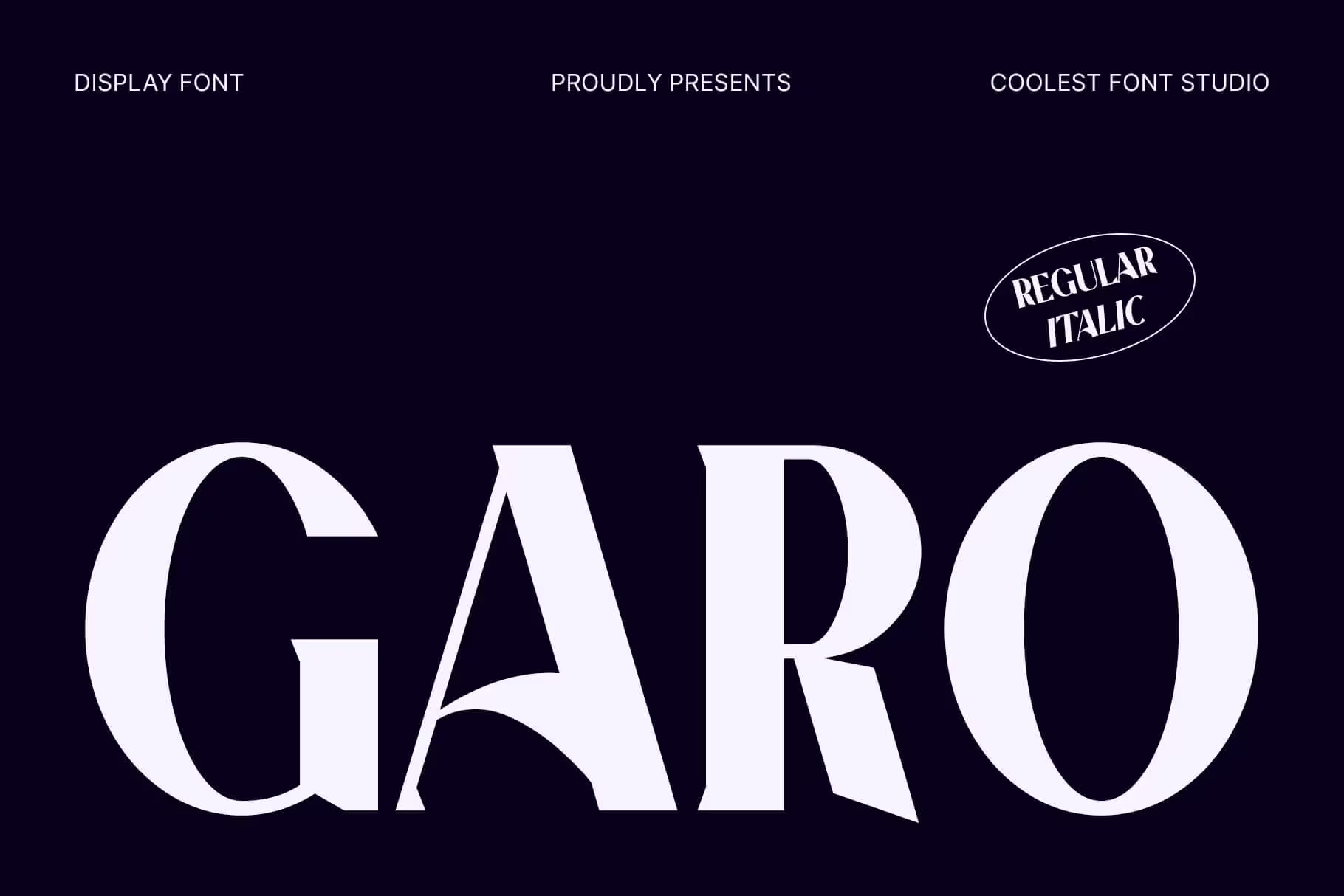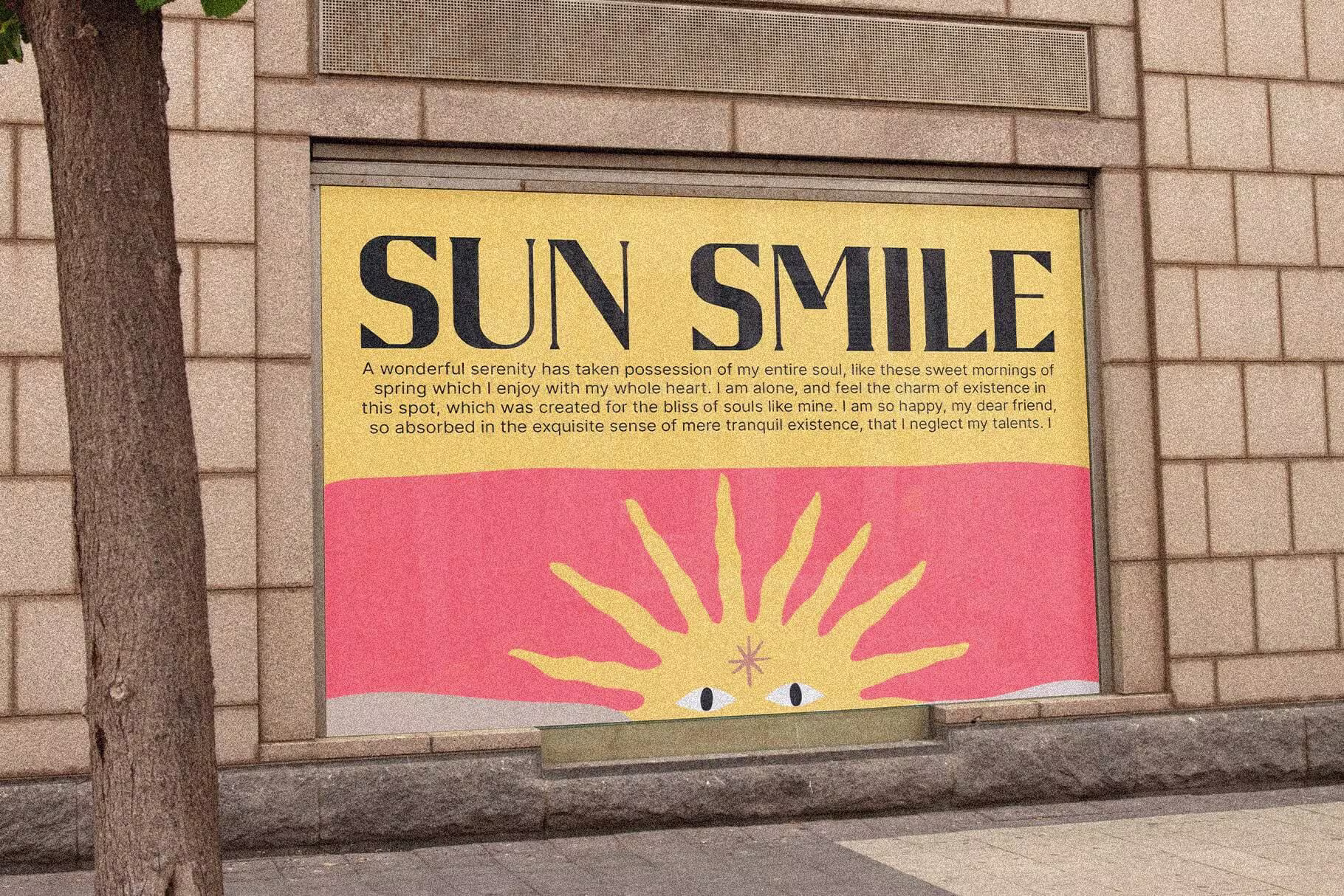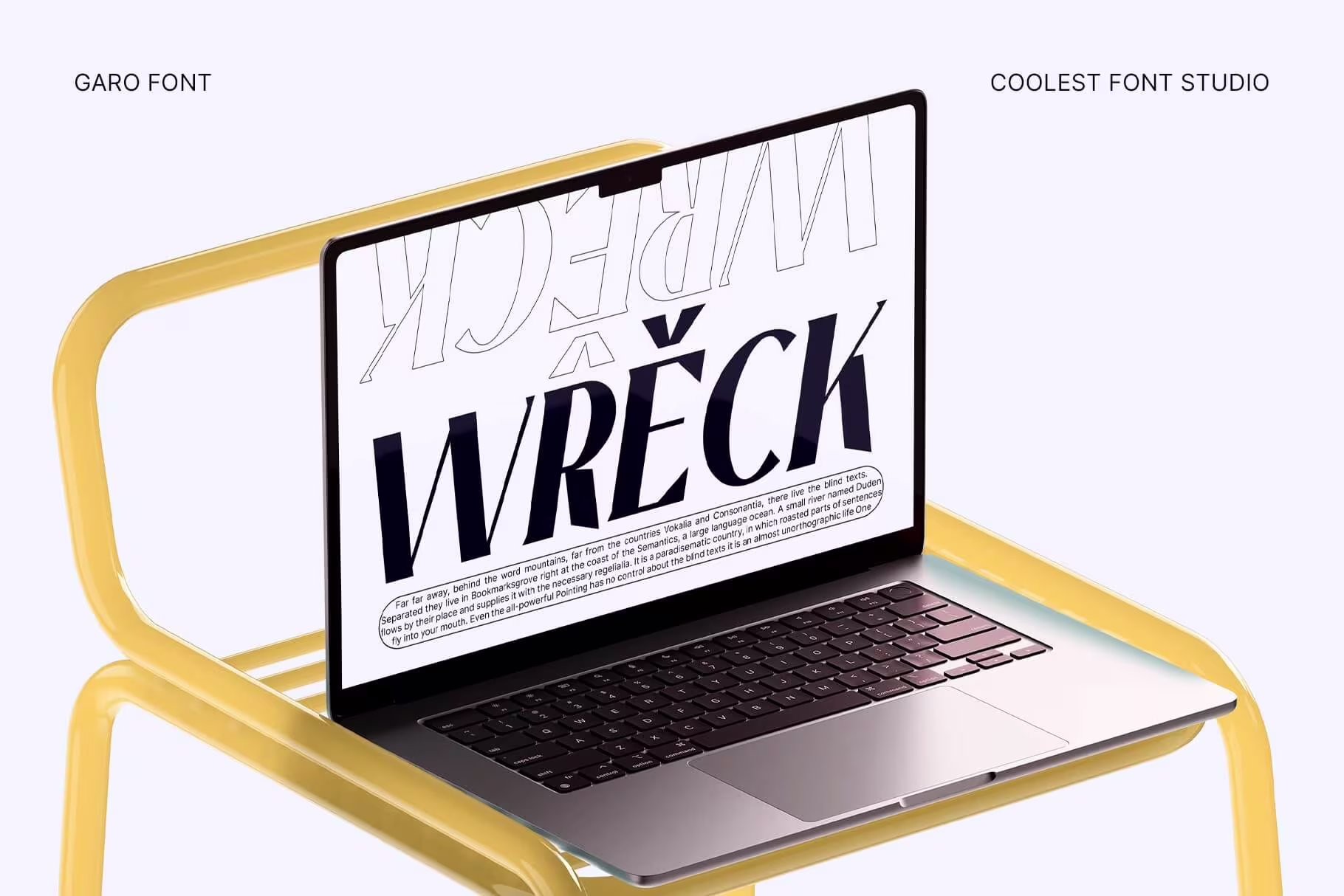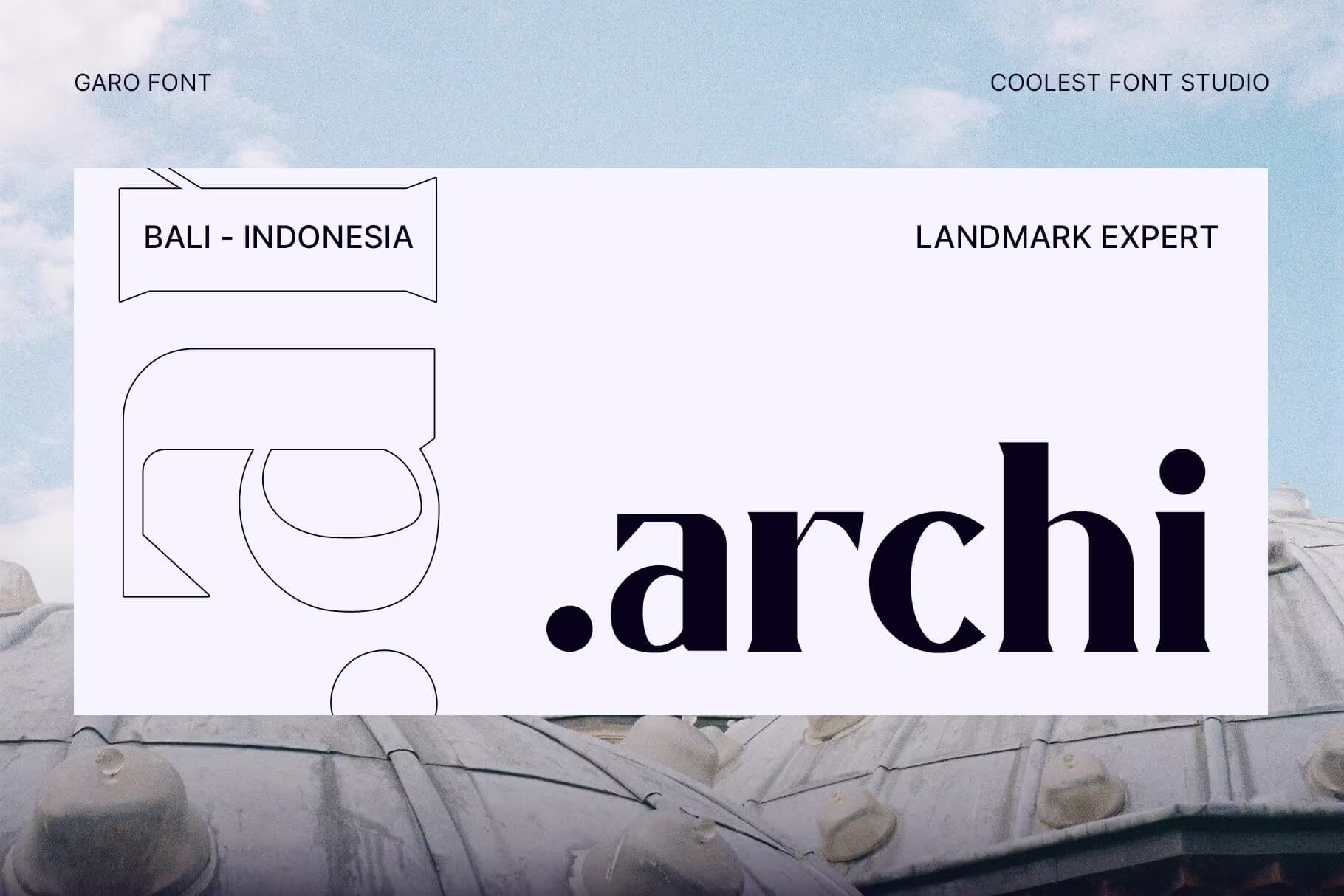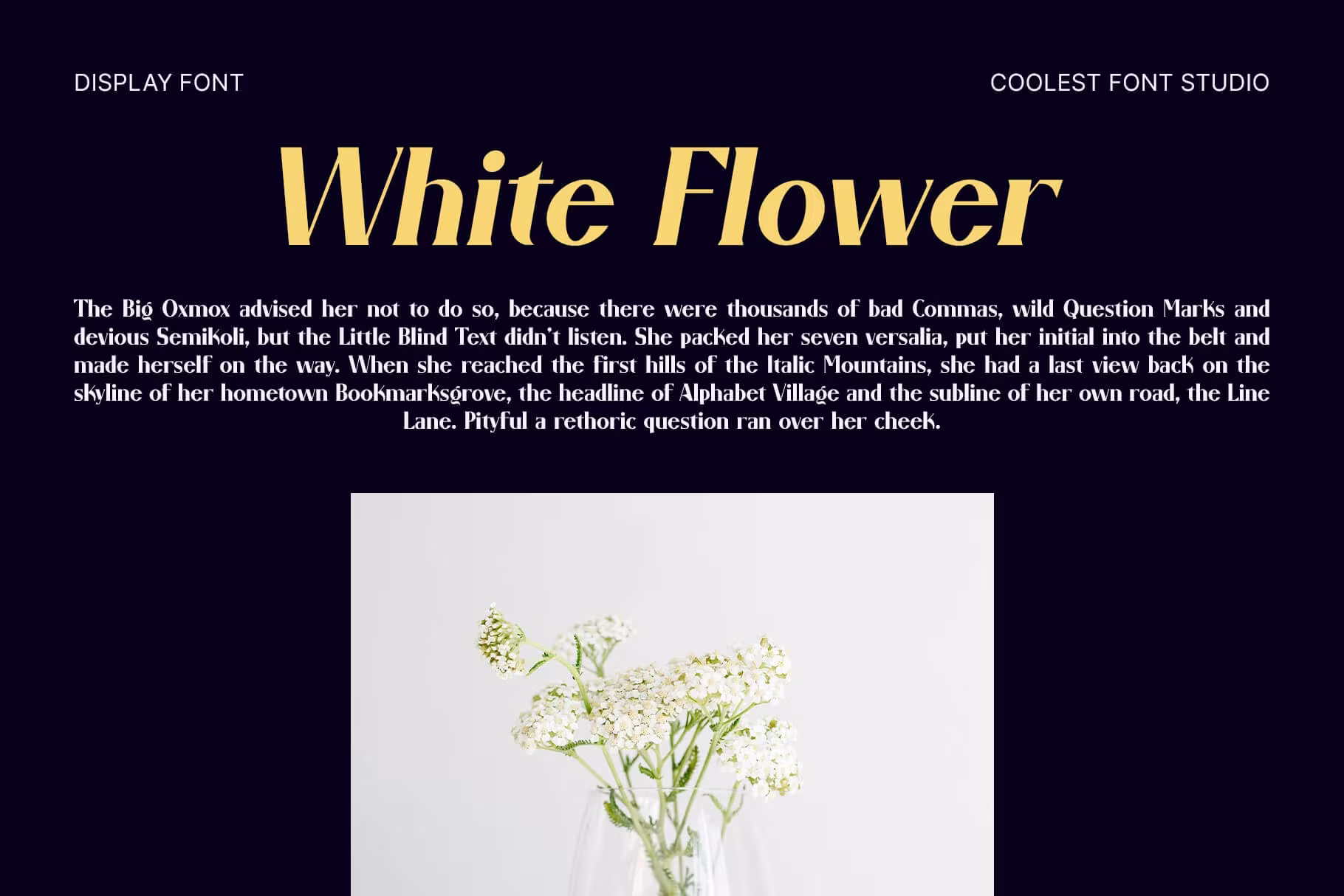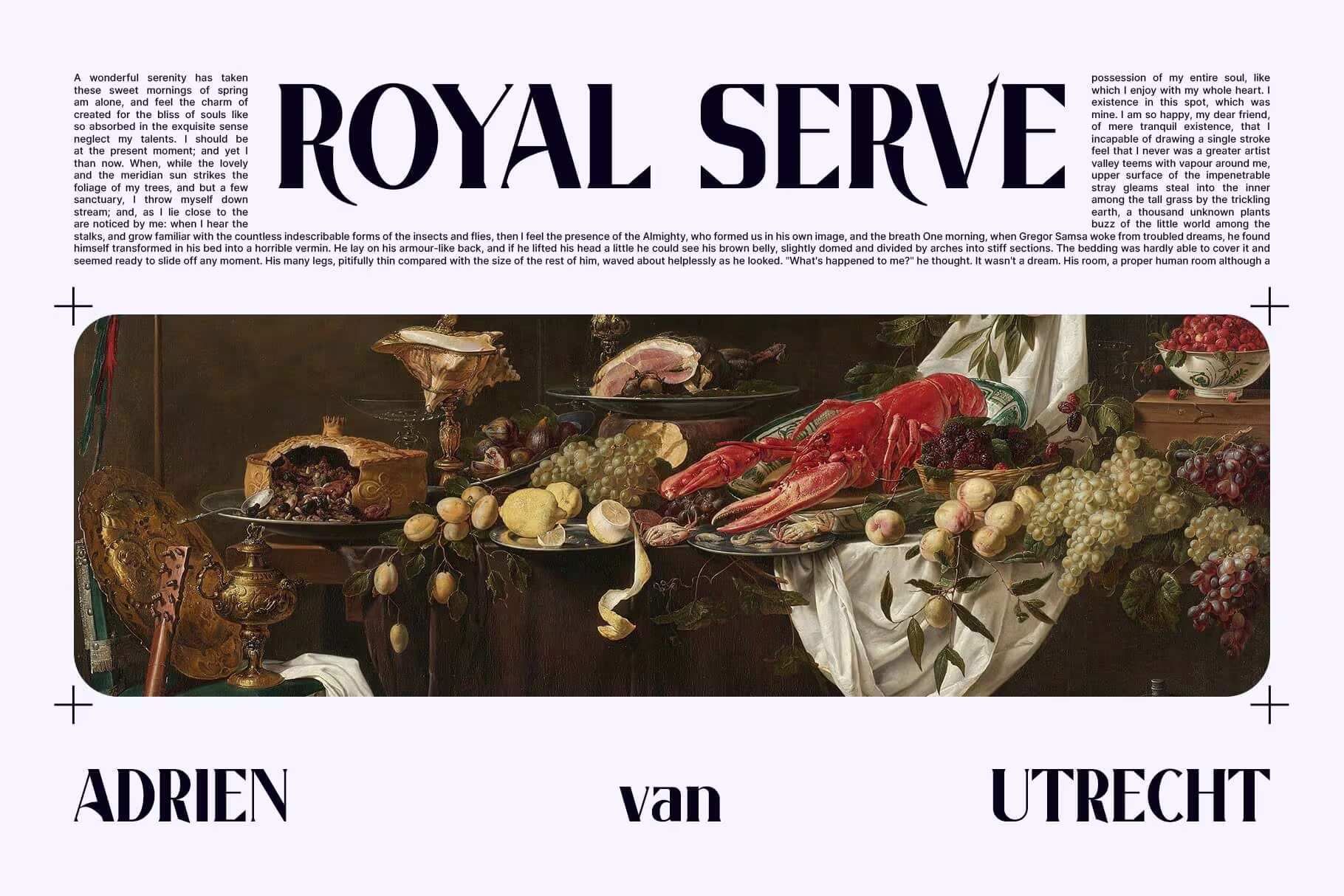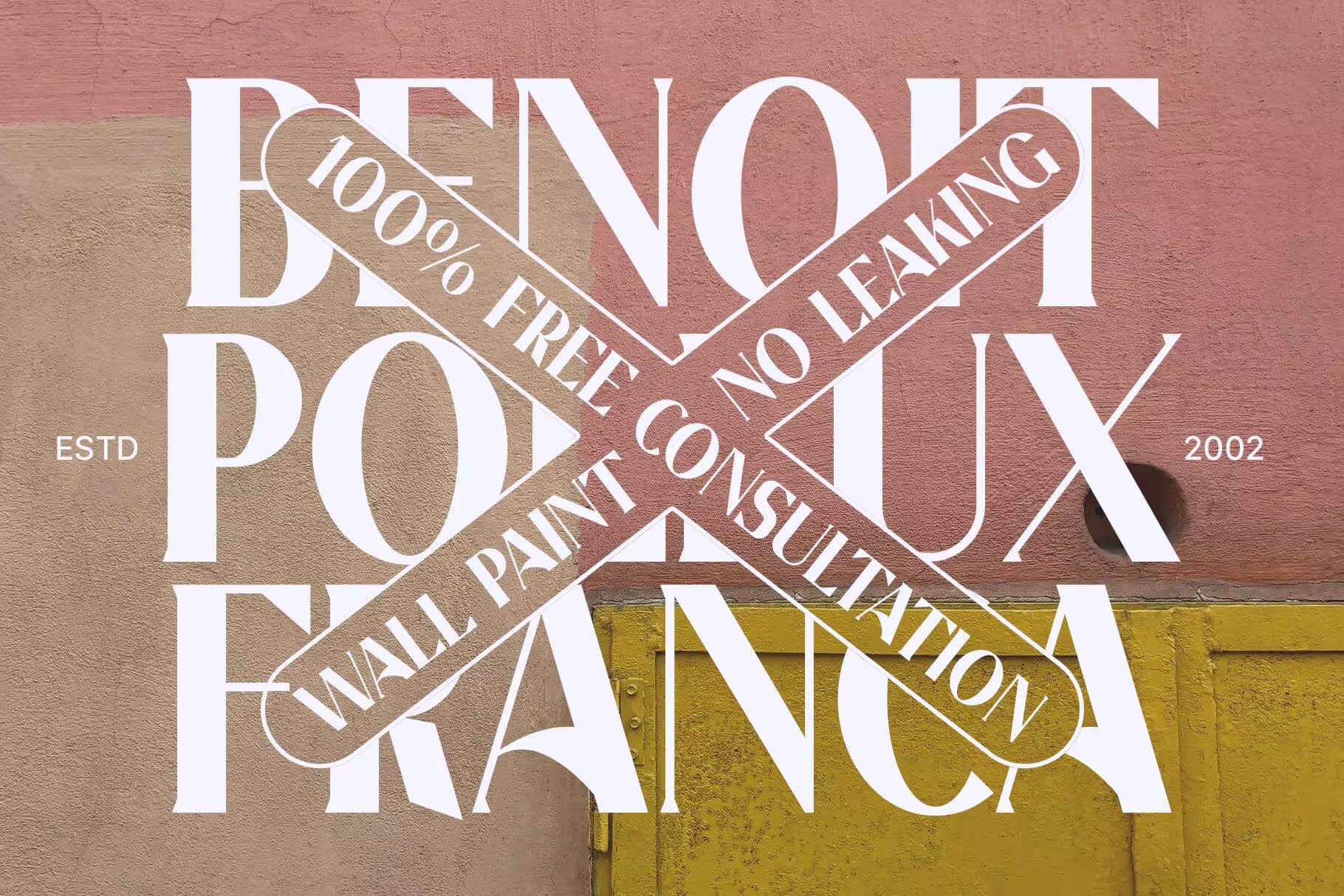
Garo Serif Font, a sophisticated and confident typeface that blends classic elegance with a modern attitude. Designed to make a bold impression, Garo is the perfect serif font for designers who seek a refined, upscale aesthetic with a contemporary twist.
From luxury branding to high-end packaging, editorial layouts to logo design—Garo delivers timeless appeal and professional versatility in every detail.
Bold. Classy. Elegant.
What makes Garo stand out is its bold contrast between thick and thin strokes, which creates visual drama while maintaining a clean and legible structure. The strong vertical serifs lend a feeling of confidence and high-end sophistication, making it ideal for premium designs that need to communicate strength and elegance.
Each character in Garo is carefully crafted to balance modernity with timeless style. The sharp terminals, generous spacing, and elegant proportions create a luxurious visual experience—especially when used in large display formats.
Features That Make Garo Special:
- Stylish Ligatures – Garo includes a set of beautiful ligatures that add flair and smooth transitions in letter combinations, giving your typography an extra touch of polish and artistry.
- High Contrast Strokes – The bold contrast ensures your designs command attention, whether on screen or in print.
- Multilingual Support – Garo supports multiple languages, making it perfect for global branding projects.
- Versatile Case Options – Both uppercase and lowercase characters are carefully designed for perfect harmony, whether used in titles, body text, or creative headlines.
Perfect For:
- Luxury Branding & Logo Design: Garo’s refined style makes it perfect for high-end fashion brands, boutique stores, or modern beauty labels.
- Editorial Layouts & Magazines: With elegant readability and stylish contrasts, it works beautifully in magazine titles, pull quotes, and article headlines.
- Packaging Design: Make your product packaging look premium and professional with Garo’s classy look.
- Wedding Invitations & Stationery: The graceful curves and delicate balance of Garo bring a romantic and formal feel to event designs.
- Website Headlines & Hero Texts: Need to grab attention right away? Garo’s strong yet refined form is ideal for creating memorable web visuals.
Design that Speaks Luxury
Garo is not just a typeface—it’s a design statement. Whether you’re designing a minimalist fashion lookbook or a bold logo for a modern label, Garo helps express your brand’s personality with style and clarity. Its combination of sharp precision and smooth curves adds drama without losing elegance, giving you the flexibility to elevate any project.
Final Thoughts
If you’re looking for a serif font that radiates modern elegance, creative flair, and premium quality, Garo is your go-to choice. Its versatility allows it to adapt seamlessly across a range of projects, while always maintaining its refined character. Whether you’re designing for print or digital, branding or editorial, Garo will elevate your design with its confident, graceful presence.